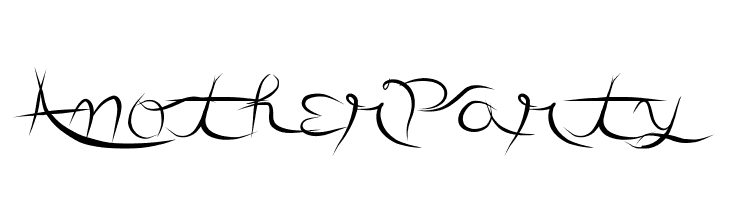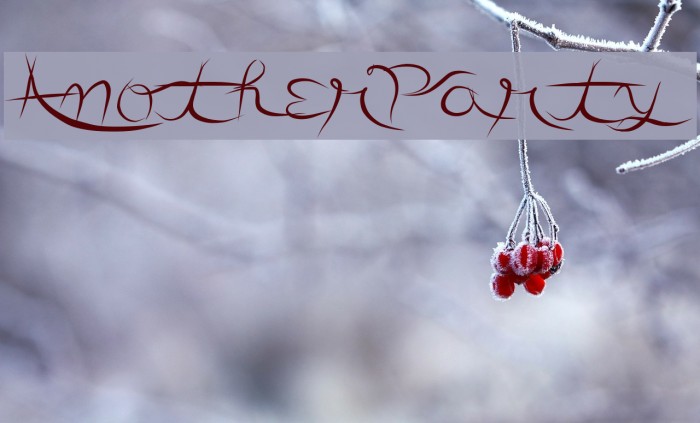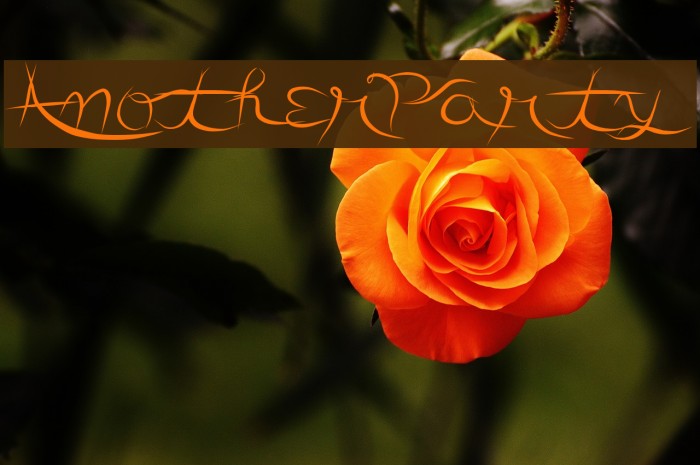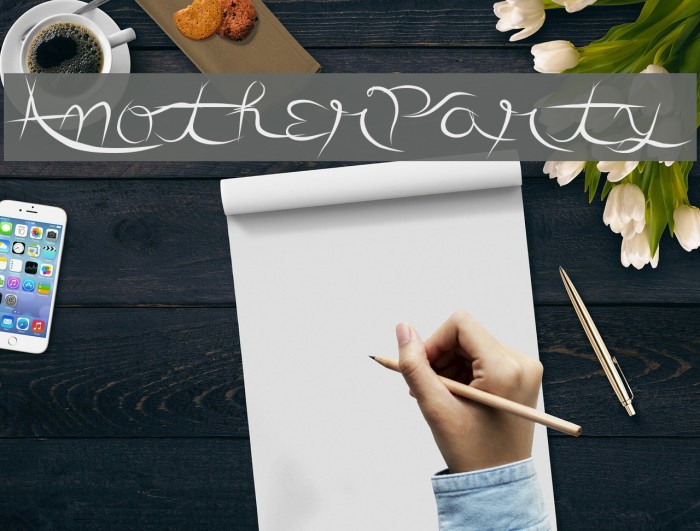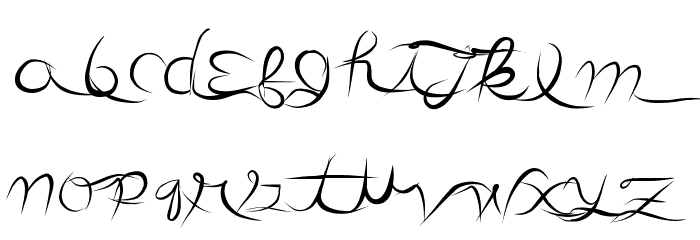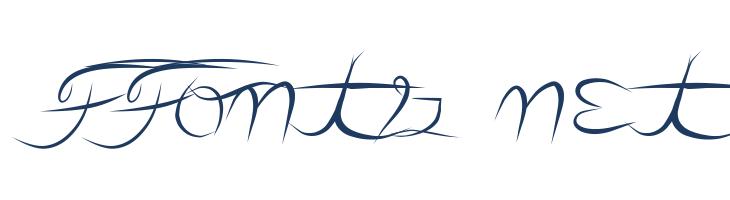
AnotherParty Font
AnotherParty Description
This font features an intricate and artistic design, characterized by swirling and elongated strokes that create a sense of movement and fluidity. The letters are highly decorative, with each character exhibiting unique flourishes and extensions that give the font a whimsical and almost ethereal quality. The overall appearance is reminiscent of calligraphy, with a modern twist that incorporates abstract elements. The font's complexity and ornate style make it stand out, capturing attention with its elaborate and expressive forms.
| Overall Style | Modern Decorative |
| Use Case | Headlines, Logos, Artistic projects |
| Proposed Projects | Ideal for artistic projects, invitations, branding for creative industries, and decorative headings. |